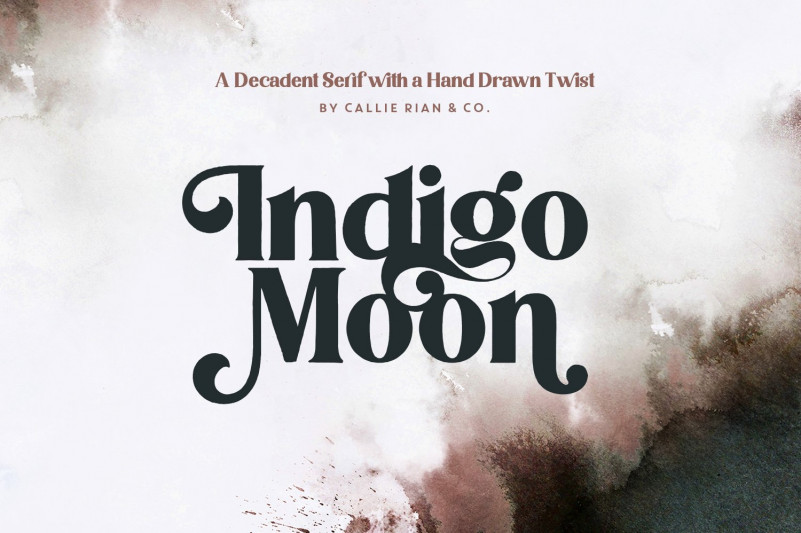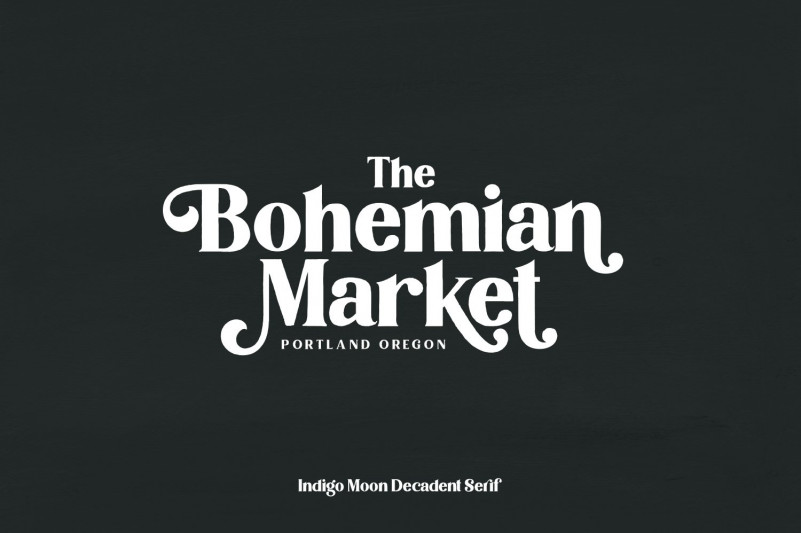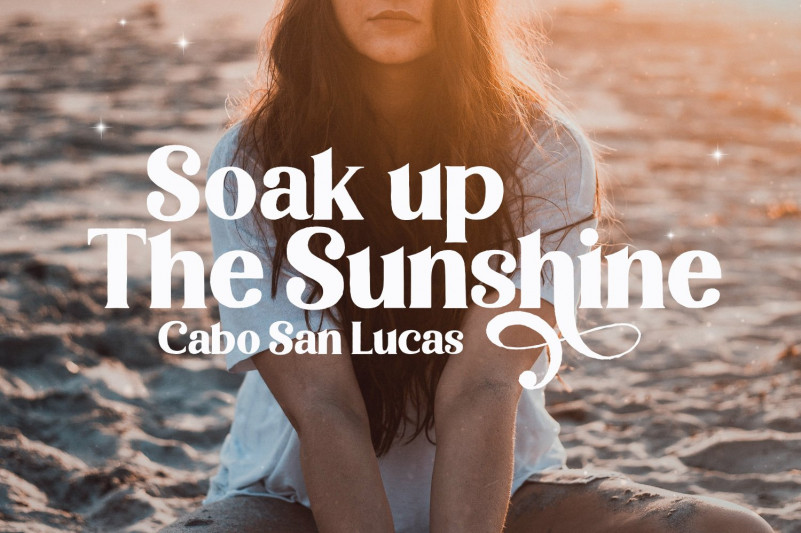
Indigo Moon Font
Introducing Indigo Moon – a decadent, classic serif with over 150 hand-illustrated alternates, and preserved texture, for a uniquely vintage, yet modern feel.